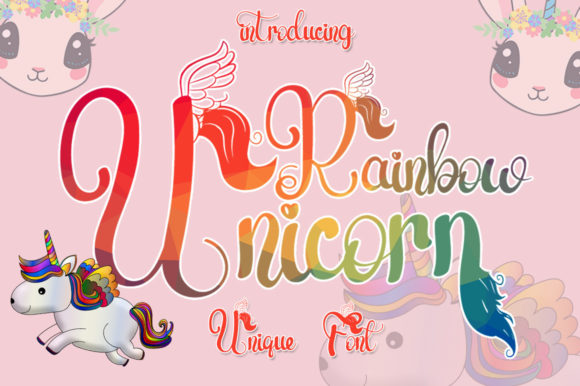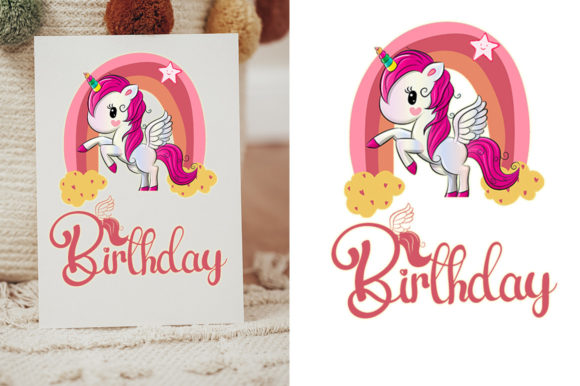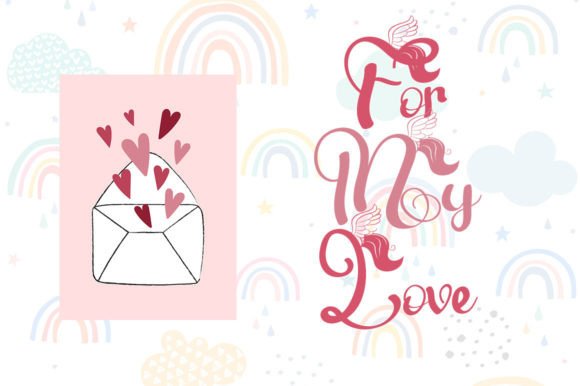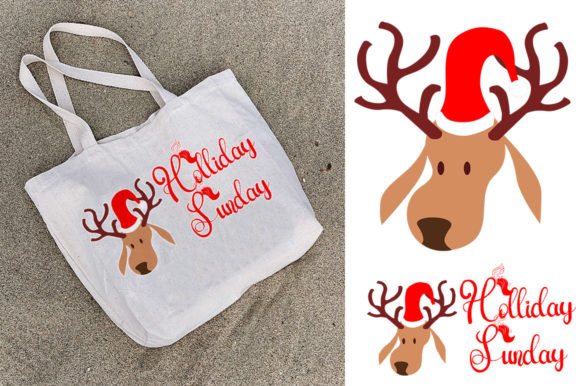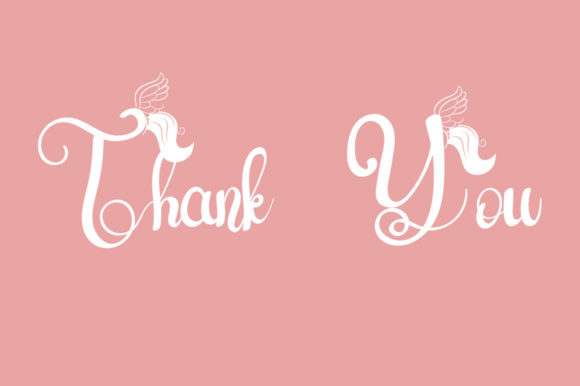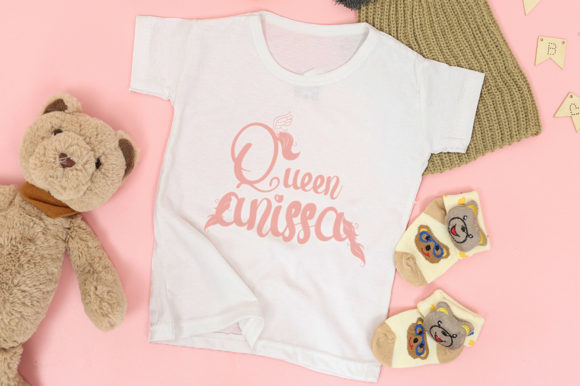
Rainbow Unicorn Font
About Rainbow Unicorn Font
“Rainbow Unicorn”: Beautiful, Sweet, and Joyful Font for Elegant Designs
Introducing “Rainbow Unicorn,” a font that embodies beauty, sweetness, and joyfulness. This fresh, clean, and elegant typeface is designed to enhance a variety of projects, both formal and informal, bringing an incredibly joyful touch to your designs. Whether you’re working on formal documents or creative endeavors, “Rainbow Unicorn” adds a beautiful and delightful element that will make your designs stand out.
The standout features of “Rainbow Unicorn” lie in its beauty and sweetness. The font exudes a sense of freshness and elegance, making it suitable for a wide range of projects where visual appeal is key. Whether you’re creating formal documents or adding a touch of joy to your creative designs, “Rainbow Unicorn” simplifies your design process, making your business or projects look more beautiful.
Imagine using “Rainbow Unicorn” in formal settings where the font’s clean and elegant style enhances the overall professional appearance. In creative projects, the font becomes a visual tool for infusing joy and freshness into your designs, creating a positive and memorable experience for your audience. Its versatility makes it suitable for a variety of contexts, ensuring that your designs are not only visually appealing but also convey a sense of beauty and delight.
The PUA encoding of “Rainbow Unicorn” allows easy access to a range of amazing glyphs and ligatures, providing you with creative freedom to customize and explore its unique features effortlessly. This feature enhances the font’s flexibility, allowing you to tailor it to suit your specific design vision.
In conclusion, “Rainbow Unicorn” is more than just a font; it’s a design asset that brings beauty, sweetness, and joy to your projects. Whether you’re working on formal documents, creative designs, or any other context, let “Rainbow Unicorn” be the font that adds a delightful and elegant touch to your creations. Explore its possibilities, embrace its beauty, and watch as it transforms your designs into visually stunning and joy-filled experiences.